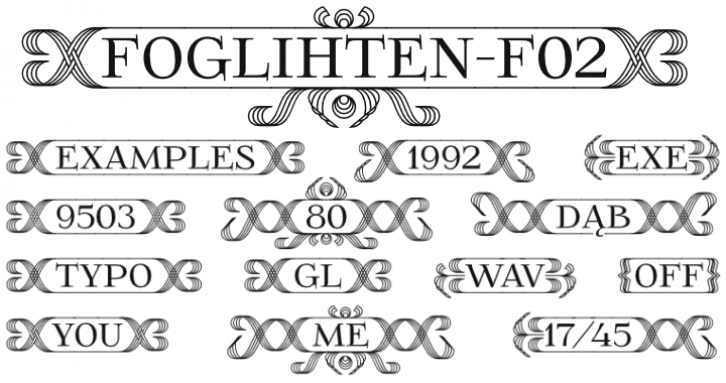
DecÂoÂraÂtive Set of Frames with access direct from Keyboard, based on my font Foglihten PetiteCaps ( http://www.fontspace.com/gluk/foglihten ). See Exaples of use in FoglihtenFr02.pdf!